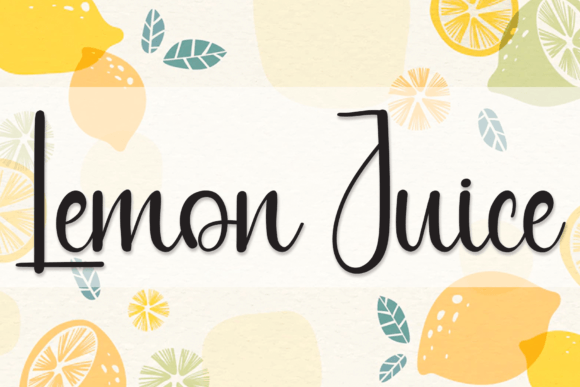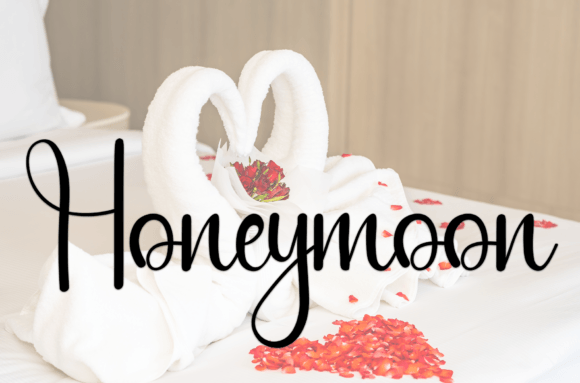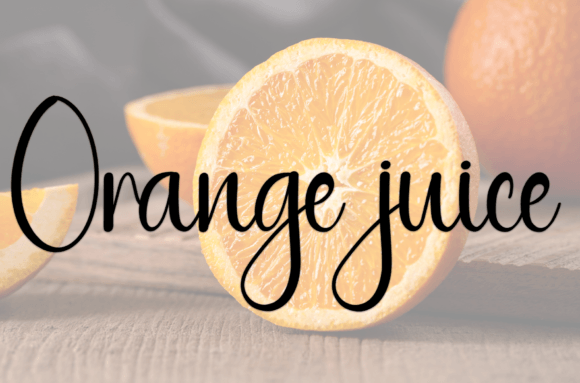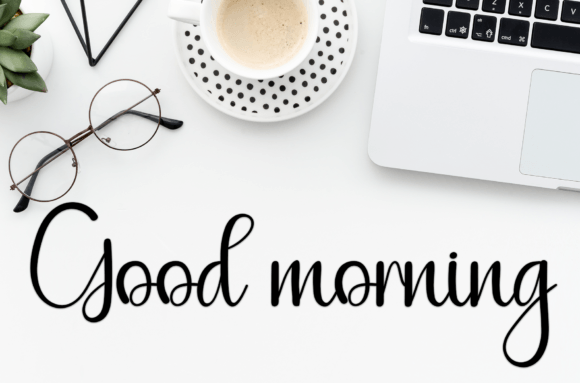
A Sweet and Playful Handwritten Typeface
Lemon Juice Font is a delightful and charming handwritten script that brings a sweet and friendly touch to your designs. With its playful style and relaxed character, this font is perfect for a wide variety of projects. Particularly, it adds a sense of warmth and elegance to any design, making it ideal for wedding invitations, cards, branding materials, and more.
Perfect for Wedding Invitations
When designing wedding invitations, Lemon Juice Font brings a fresh and inviting feel. The font’s handwritten appearance adds a sense of personalization and whimsy, setting the stage for a beautiful and memorable celebration. Your invitations will stand out with their sweet and friendly vibe, making them feel truly special for your guests.
Great for Greeting Cards
For greeting cards, Lemon Juice Font makes your designs even more heartfelt and endearing. Whether you’re creating a birthday card, thank-you note, or any other occasion, this font’s charming and relaxed letterforms convey a sense of warmth and joy. It adds a playful touch, making the recipient feel cherished and appreciated.
Ideal for Branding Materials
In addition to wedding invitations and greeting cards, Lemon Juice Font is perfect for a variety of other designs. Whether you’re creating logos, business cards, or branding materials, this font helps create a friendly and approachable impression. Its sweet and playful nature makes it ideal for branding that aims to be welcoming and memorable.
Perfect for Quotes and Social Media Graphics
Lemon Juice Font also adds a lovely touch to quotes, posters, and social media graphics. Whether you’re crafting motivational quotes or creating visual content for your social media, the font’s whimsical charm makes your messages feel personal and inviting. It ensures your design captures attention with its playful and elegant appeal.
Versatile and Easy to Use
Despite its playful design, Lemon Juice Font remains legible and easy to use for a variety of applications. Whether you’re working on headlines, captions, or body text, it strikes a perfect balance between creativity and legibility. The font is suitable for both print and digital media, making it an ideal choice for any project.
Add Warmth and Playfulness to Your Designs with Lemon Juice Font
In summary, Lemon Juice Font is a sweet and friendly handwritten typeface that brings a playful and relaxed vibe to your designs. Whether you’re working on wedding invitations, greeting cards, branding materials, or other projects, Lemon Juice adds a touch of warmth and elegance. Let Lemon Juice bring joy and charm to your designs and create an inviting atmosphere for your audience.